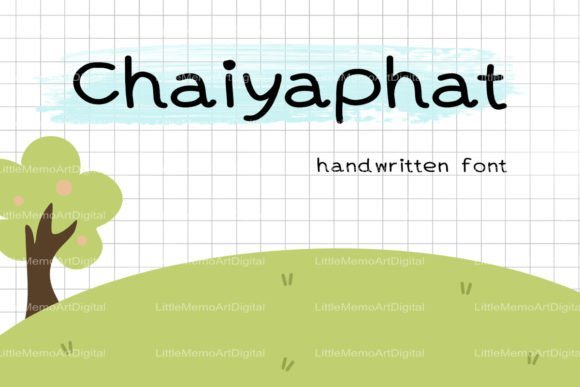
Introduction to Chaiyaphat Font
Chaiyaphat is a sweet and quirky handwritten font.
Add this cute font to your crafty ideas and you will love the results .
Why Choose Chaiyaphat Font?
Chaiyaphat Font offers exceptional quality and versatility, making it a valuable addition to your design toolkit. Whether you’re creating for personal projects or commercial use, Chaiyaphat Font delivers professional results.